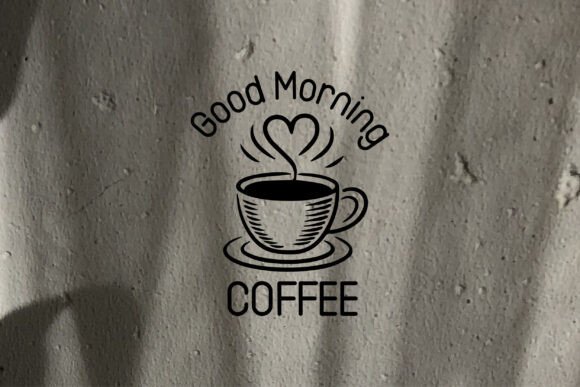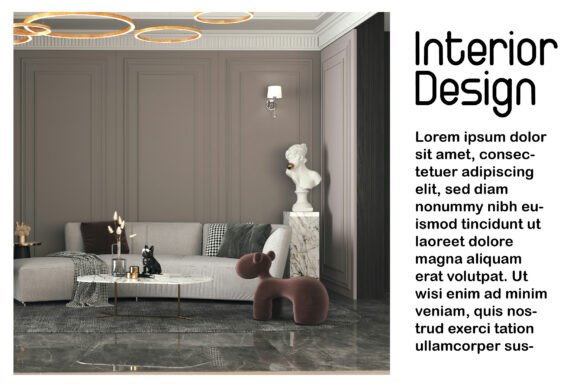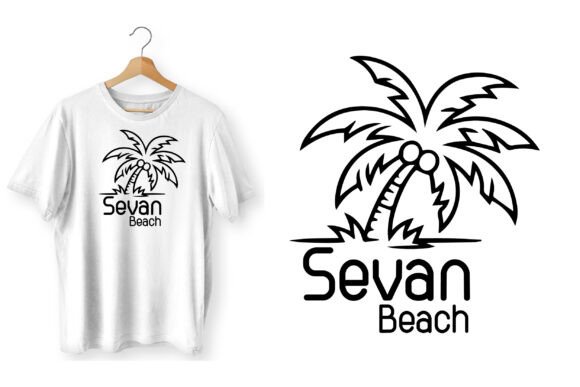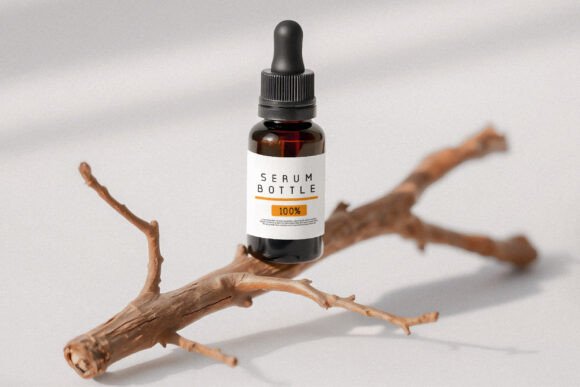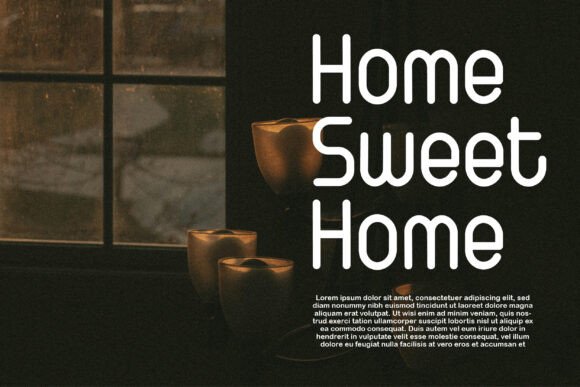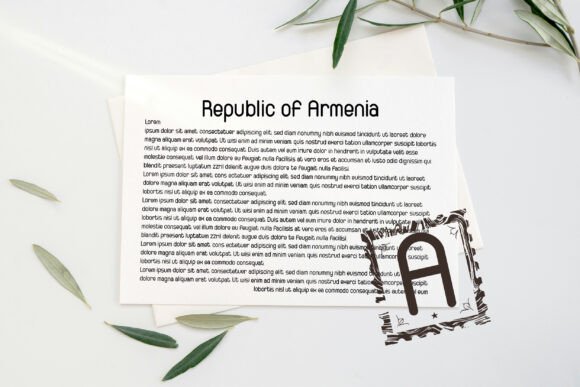
Introducing Armenia Sans: The Ultimate Font for Modern Design
In the world of design, typography plays a crucial role in conveying a message, creating a brand identity, and making a lasting impression. With the ever-evolving landscape of digital design, it’s essential to have a font that not only keeps up with the trends but also elevates your creative projects. This is where Armenia Sans comes in – a revolutionary sans-serif font that seamlessly merges modernity and minimalism, offering a stylish and sophisticated solution for designers and crafters.
The Perfect Blend of Style and Functionality
Armenia Sans boasts a sleek and contemporary outline that promises to add a touch of professionalism to any venture. Its clean lines, precise curves, and carefully crafted details make it an ideal choice for projects that demand a high level of sophistication. Whether you’re designing a website, creating branding materials, or spearheading a marketing campaign, Armenia Sans provides the perfect blend of style and functionality.
Global Inclusivity through Multi-Language Support
In today’s interconnected world, communication knows no borders. Armenia Sans takes this into account by offering multi-language support, effortlessly bridging communication gaps across the globe. This feature makes it an excellent choice for designers and businesses looking to expand their reach and connect with diverse audiences. With Armenia Sans, you can create designs that transcend linguistic and cultural barriers, ensuring your message is conveyed clearly and effectively.
Armenia Sans is more than just a font – it’s a design essential that can elevate your creative projects to new heights. Its versatility makes it suitable for a wide range of applications, including:
- Web Design: Create a stunning website with Armenia Sans, making a lasting impression on your visitors.
- Branding Materials: Develop a unique brand identity with Armenia Sans, setting your business apart from the competition.
- Marketing Campaigns: Spearhead a vibrant marketing campaign with Armenia Sans, grabbing the attention of your target audience.
Why Choose Armenia Sans?
With so many fonts available, why choose Armenia Sans? Here are just a few reasons why designers and crafters are falling in love with this revolutionary font:
- Unique Style: Armenia Sans offers a distinctive, modern aesthetic that’s sure to make your designs stand out.
- Multi-Language Support: Reach a global audience with Armenia Sans’s extensive language support.
- Versatility: Use Armenia Sans across various design projects, from web design to marketing materials.
- Professional Edge: Add a touch of sophistication to your designs with Armenia Sans’s sleek, contemporary outline.
Armenia Sans is more than just a font – it’s a design revolution. With its seamless merger of modernity and minimalism, multi-language support, and versatility, it’s the perfect choice for designers and crafters looking to elevate their creative projects. Whether you’re designing a website, creating branding materials, or spearheading a marketing campaign, Armenia Sans is destined to become an indispensable asset in your repertoire of design essentials.